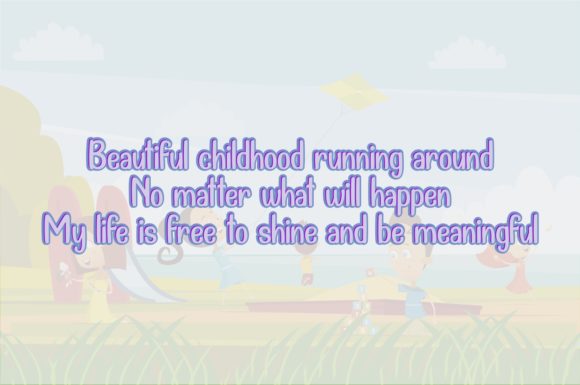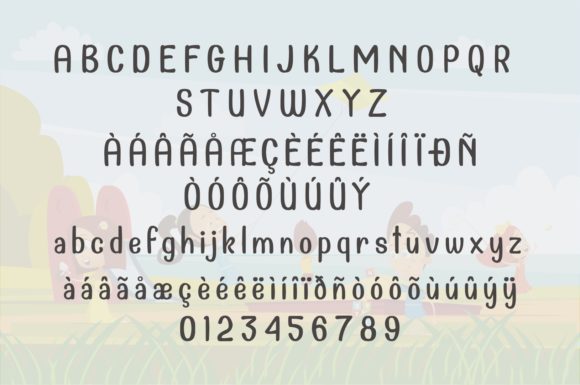
Dollanan Font: Add a Dash of Whimsy to Your Designs
Are you tired of using the same old fonts in your designs? Do you want to add a touch of humor and playfulness to your projects? Look no further than the Dollanan font! This comically hilarious and whimsical display font is sure to bring a smile to your face and inspire your creativity.
The Charm of Dollanan Font
Dollanan is a display font like no other. Its undeniably youthful charm makes it perfect for designs that need a fun twist. Whether you’re working on a children’s book, a cartoon, or a playful advertisement, Dollanan is the ideal choice. Its comical and whimsical nature will instantly grab the attention of your audience and leave a lasting impression.
Key Features of Dollanan Font
- Unique and Quirky Design: Dollanan font boasts a one-of-a-kind design that’s sure to stand out in any project.
- Youthful and Playful: The font’s youthful charm makes it perfect for designs that cater to a younger audience.
- Comically Hilarious: The font’s comical nature adds a touch of humor to any design.
- Whimsical: Dollanan font has a whimsical feel that’s perfect for designs that require a dash of imagination.
Uses of Dollanan Font
Dollanan font is versatile and can be used in a variety of design projects, including:
- Children’s Books and Magazines: Add a playful touch to your children’s book or magazine with Dollanan font.
- Cartoon and Animation: Dollanan font is perfect for cartoon and animation projects that require a fun and quirky feel.
- Advertisements and Posters: Use Dollanan font to create eye-catching advertisements and posters that grab attention.
- Social Media Graphics: Add a dash of whimsy to your social media graphics with Dollanan font.
- Crafting and DIY Projects: Dollanan font is also perfect for crafters and DIY enthusiasts who want to add a personal touch to their projects.
Tips for Using Dollanan Font
Here are some tips for using Dollanan font effectively in your designs:
- Use it as a Display Font: Dollanan font is best used as a display font to grab attention and make a statement.
- Pair it with Other Fonts: Experiment with pairing Dollanan font with other fonts to create a unique and visually appealing combination.
- Adjust the Size and Color: Play around with different sizes and colors to make Dollanan font stand out in your design.
In conclusion, Dollanan font is a comically hilarious and whimsical display font that’s perfect for designers and crafters who want to add a fun twist to their projects. Its unique and quirky design, youthful charm, and comical nature make it an ideal choice for a variety of design projects. So why not give Dollanan font a try and see how it can inspire your creativity?
Get Inspired with Dollanan Font